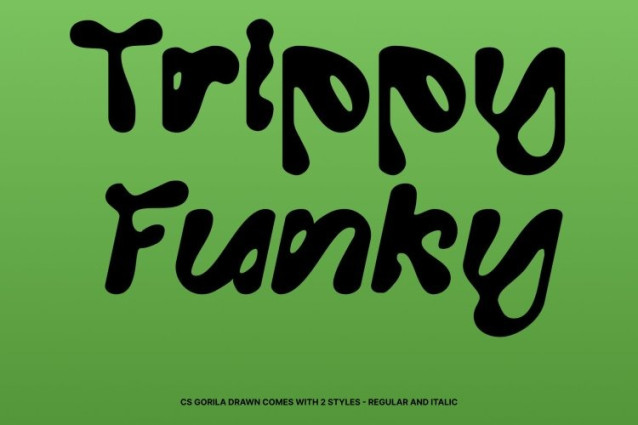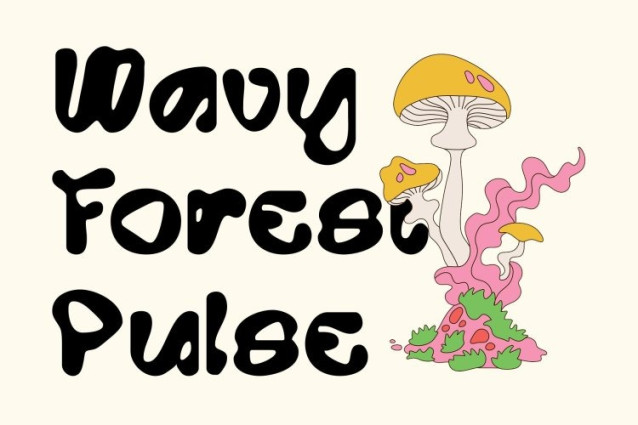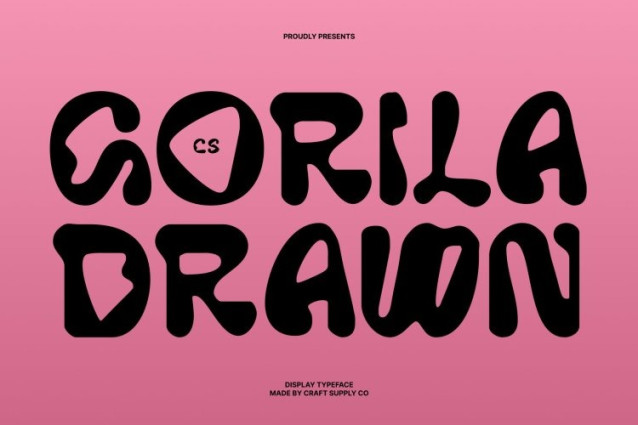
CS Gorila Drawn Font This is a modern display font that blends trippy, psychedelic aesthetics with a contemporary design foundation. Its bold, fluid letterforms are shaped with quirky, irregular curves that create visual rhythm and movement. The drawn effect adds handcrafted imperfections, giving the font an organic, artistic feel while maintaining clear structure and balance.
Funky, Cheerful, and Full of Personality
Bursting with energy and imagination, delivers a playful and expressive typographic voice. Each character feels alive and dynamic, radiating a funky, cheerful personality that invites creativity and experimentation. The hand-drawn texture enhances its free-spirited charm, making it stand out from rigid, conventional display fonts.
Perfect for Artistic and Youthful Designs
This is ideal for music posters, album covers, experimental graphics, creative branding, event visuals, and youth-oriented designs. Its trippy style captures retro psychedelic vibes while remaining fresh, modern, and adaptable for contemporary projects that aim to feel bold and expressive.
Make a Statement with Trippy Flair
More than just a typeface, This font is a visual experience. It’s designed for creatives who want to break rules, push boundaries, and embrace unconventional design. Use it to add trippy flair, artistic energy, and unforgettable character to your work.